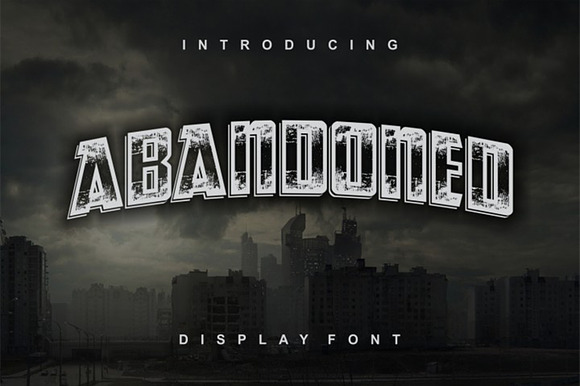
Abandoned typeface display font
New design font named Abandoned is out! Inspired from survivors themed typeface. From lost city signs till abandoned village. This font is good for last letter to use it in some design works where you have themed objects. Combine this typeface with many others, it has great possibility to be integrated.Abandoned © 2018
Why Abandoned typeface display font is worth a look
Abandoned typeface display font by Vintage Font Lab fits naturally into Branding, posters, packaging, typography.